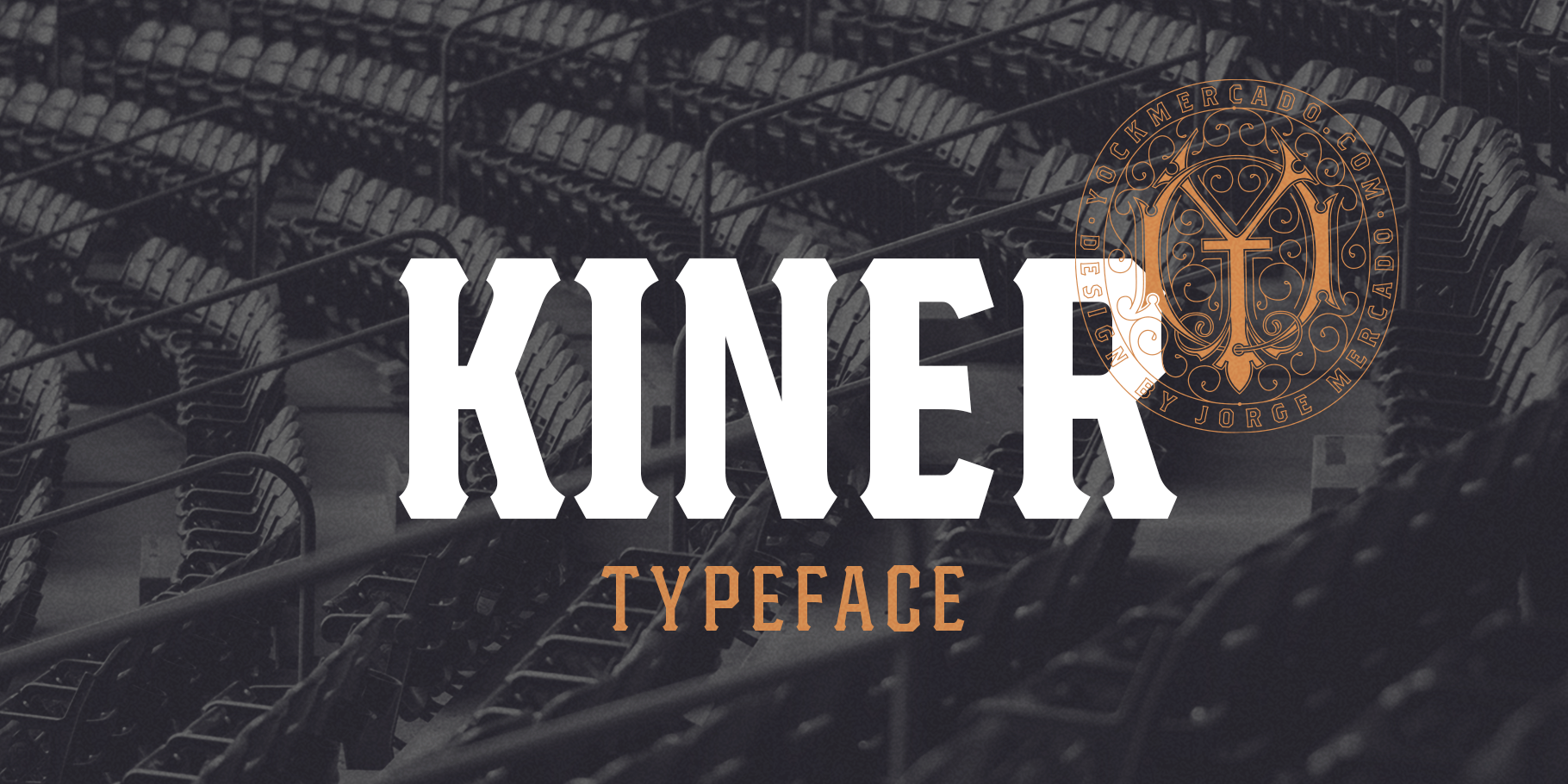
The Kiner Font is a bold and dynamic display typeface, often characterized by its strong presence, modern geometric forms, and a sense of energetic movement. Imagine its impactful characters dominating posters for music festivals, adding a striking edge to sports team branding, or creating captivating titles for action-packed video games and cinematic trailers. Its sharp angles and often stylized letterforms also make it an excellent choice for street art-inspired graphics, urban fashion labels, striking website headers, and high-energy advertising campaigns. Whether you're aiming for a powerful, assertive look or a distinctive, contemporary aesthetic, Kiner Font delivers with its unmistakable character, ensuring your visuals demand attention and leave a memorable impression.
What makes Kiner Font so exciting is its ability to immediately infuse designs with a sense of raw energy and modern dynamism. In a visual landscape that thrives on strong statements, this font stands out with its powerful visual impact and unique stylistic elements. It’s more than just a typeface; it’s a design accelerant that can instantly convey excitement, strength, and a cutting-edge attitude. Kiner Font offers designers the opportunity to create visuals that are both visually aggressive and remarkably clear, making it an invaluable asset for those looking to communicate a sense of power and contemporary flair.
The Kiner Font family is typically structured to offer a range of styles that amplify its bold and energetic appeal. Beyond the primary Kiner Regular typeface, you might find companion styles such as a more impactful Kiner Bold for even stronger emphasis, or perhaps Kiner Outline or Kiner Distressed versions to add different visual textures and further enhance its aggressive or urban aesthetic. Given its display nature, the family may also include unique ligatures or alternate characters that allow for even greater customization and design versatility, particularly in logotypes and large-format text. These diverse family members provide designers with the flexibility to establish a clear typographic hierarchy and maintain a consistent, high-impact aesthetic across all elements of their project, from dominant headlines to supporting graphic elements.